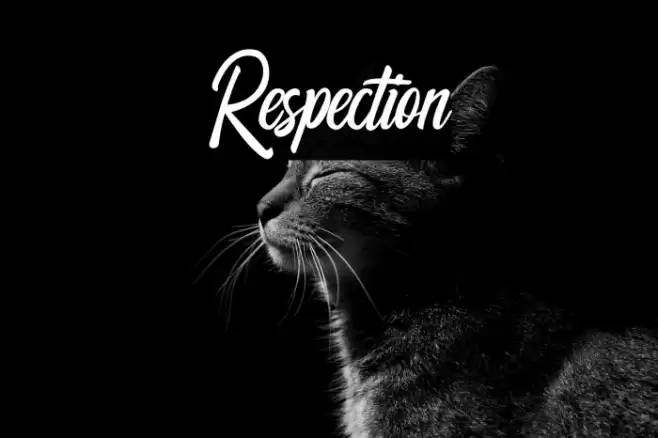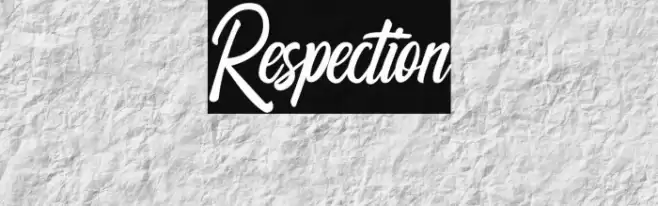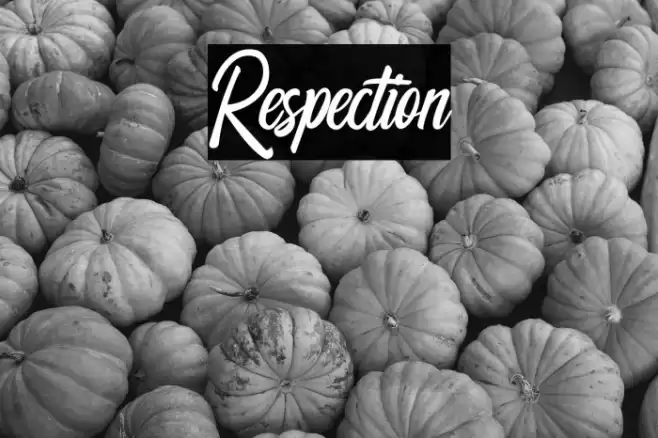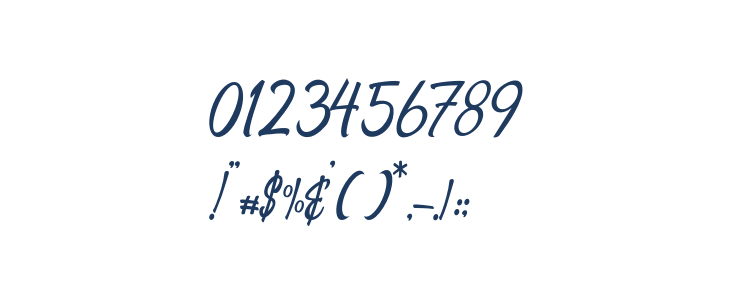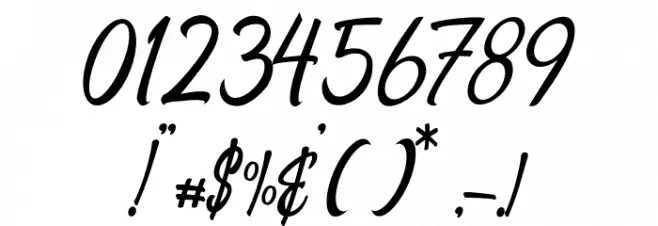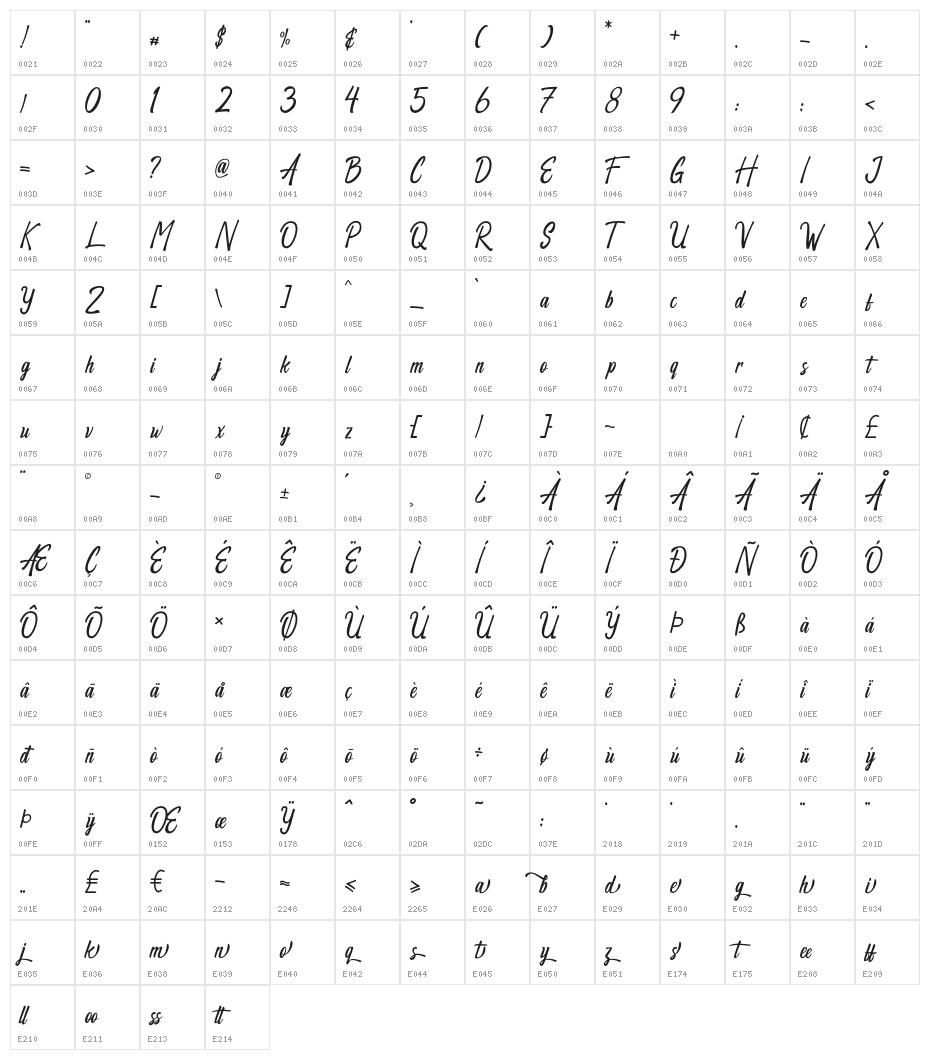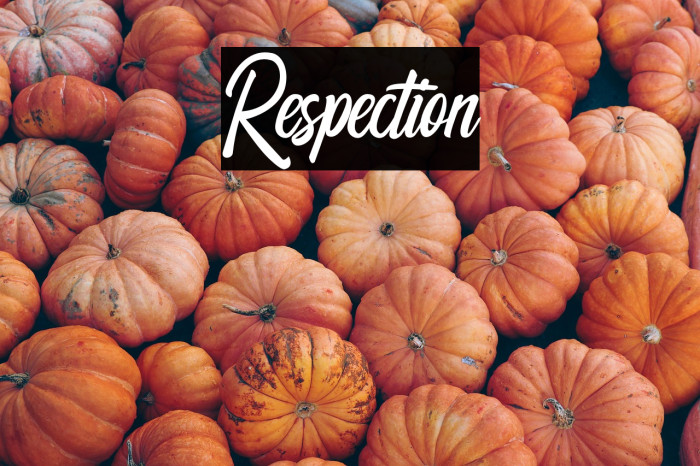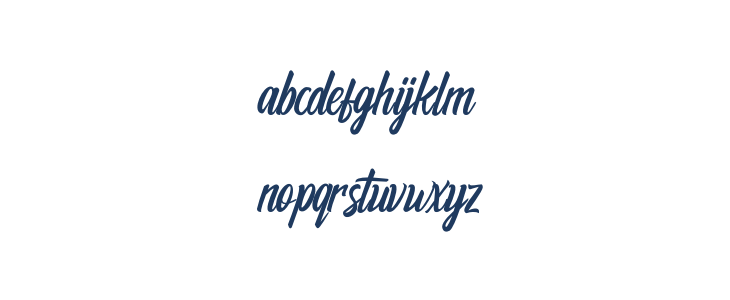
Respection Font
Respection Description
This font features a dynamic and fluid script style, characterized by its elegant, flowing curves and slightly slanted letters. The uppercase letters are bold and expressive, with a consistent stroke width that adds to its readability. The lowercase letters maintain a cohesive look with their smooth connections and rounded forms. Numbers are designed to match the overall aesthetic, ensuring uniformity across all characters. Special characters are thoughtfully integrated, maintaining the font's graceful appearance. This font exudes a sense of sophistication and creativity, making it suitable for a variety of design applications.
A dynamic and fluid script font with elegant, flowing curves from Regular fonts.
- Overall Style: Elegant and Creative